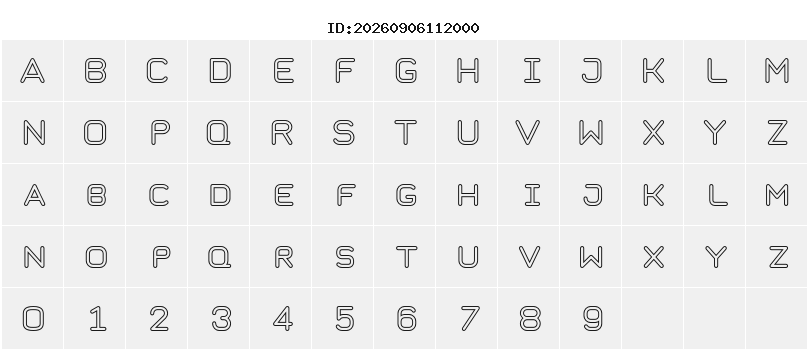
Taurus Mono Outline Preview
• Font Name: Taurus Mono Outline
• Font ID: TylerFinck: Taurus Mono Outline: 2014
• Full Font Name: TaurusMonoOutline
• PostScript Name: TaurusMonoOutline
• Character Count: 304
• Designer: Tyler Finck
• Manufacturer: Tyler Finck
About Taurus Mono Outline.otf
Taurus Mono Outline.otf is a modern, elegant sans-serif font designed for ultimate readability and visual harmony. Perfect for branding, headlines, web design, and print materials.